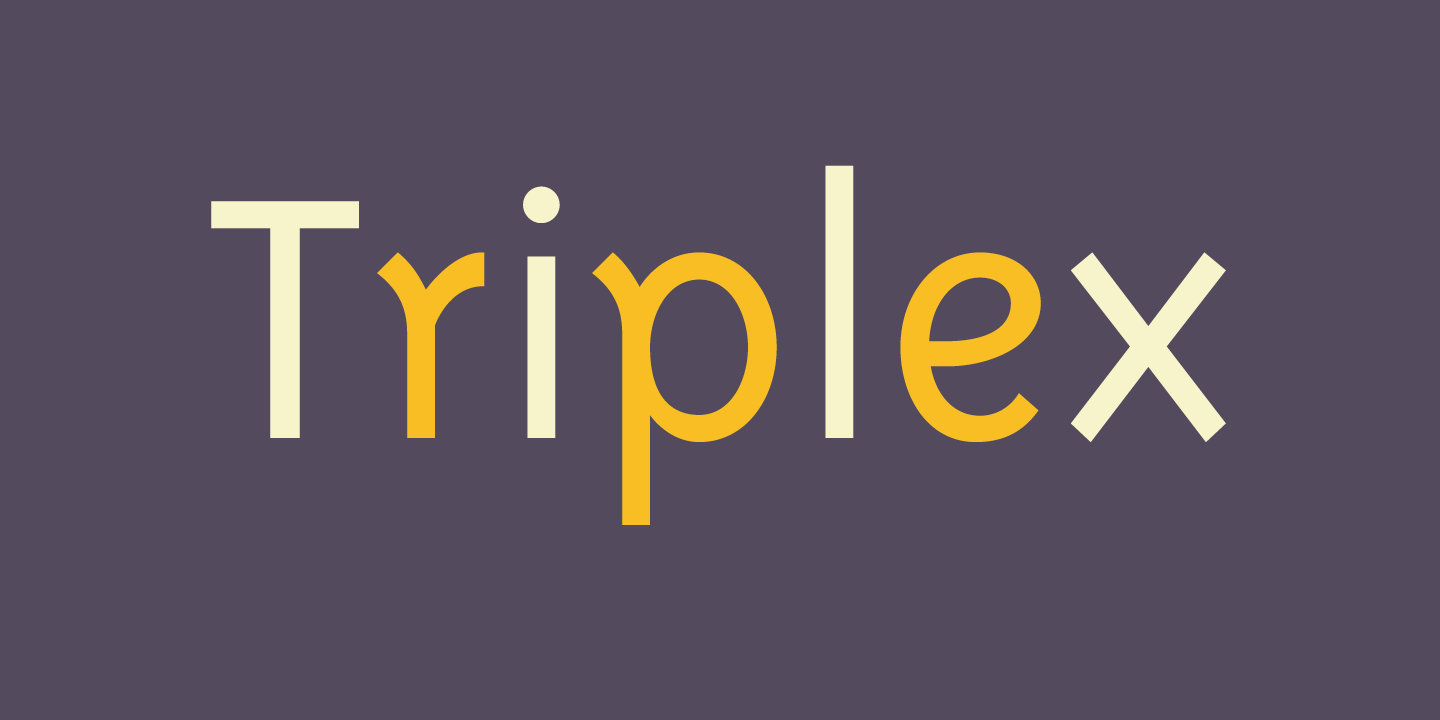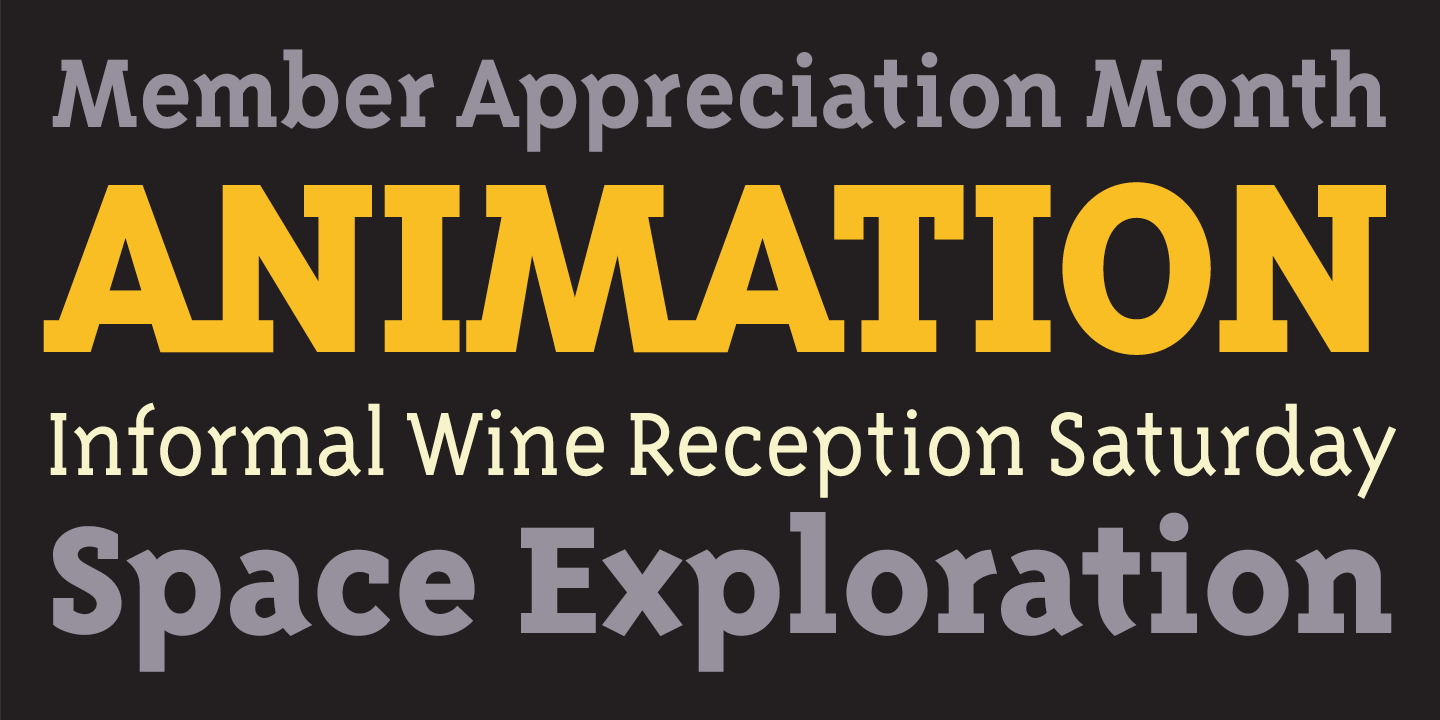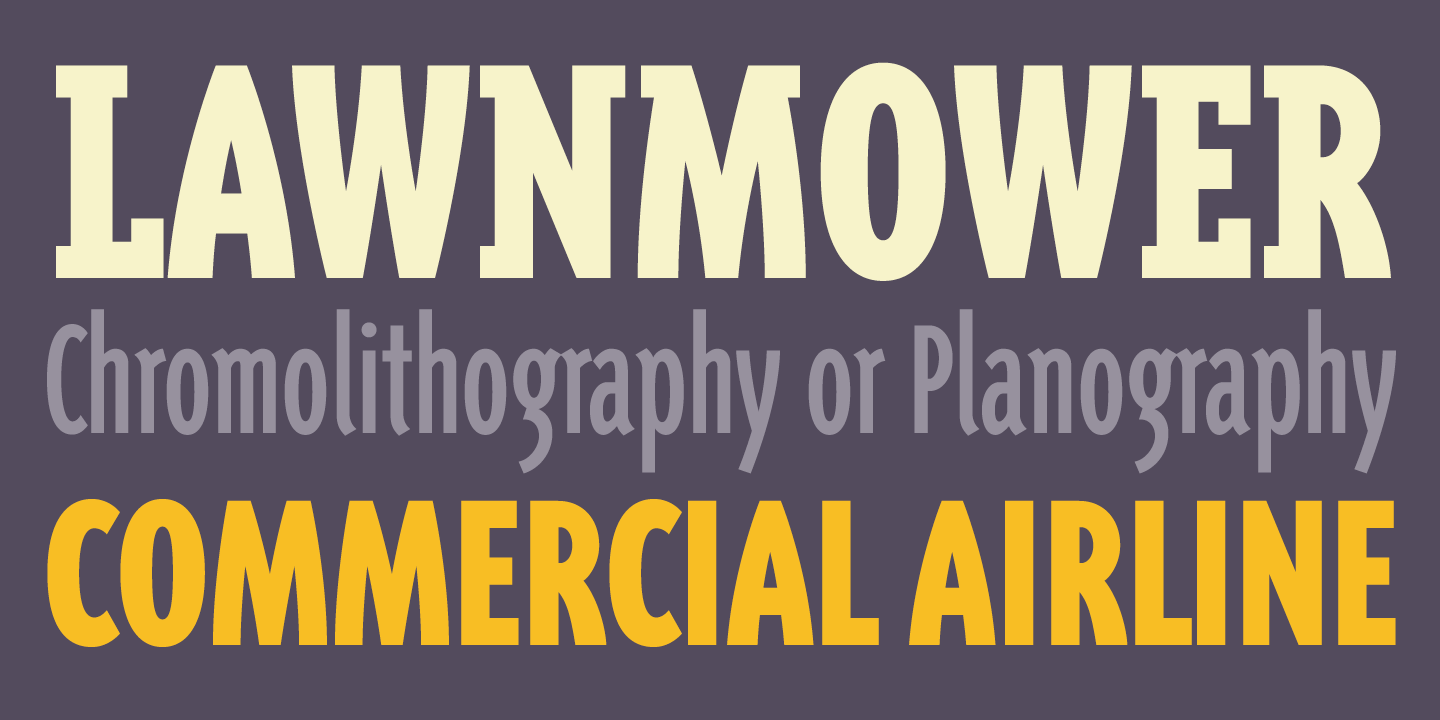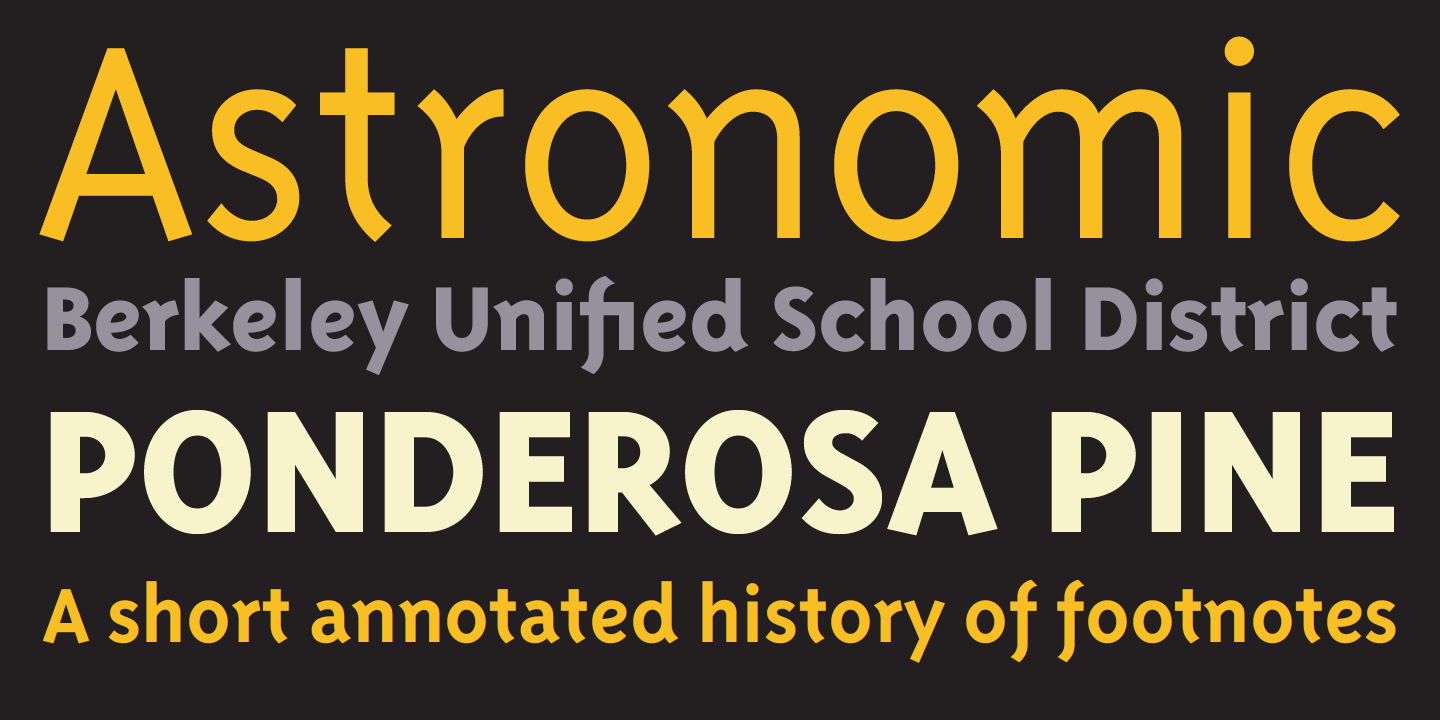
Although initially designed as a rational/geometric font, Triplex developed into one of Licko’s most intuitive typeface designs at the time of its release in 1989. Its roots, like many of Licko’s fonts during that period, can be traced back to her bitmap typeface designs which often functioned as the skeletons from which she developed her more expressive designs. Triplex’s origin can be found in the proportions of Lo-Res Twelve, a bitmap screen font, which morphed into Citizen, made of straight line segments , which then led to the design of Triplex.
Triplex was intended as a less rigid and friendlier substitute for Helvetica, and its first extensive use was in Emigre magazine #14, a special issue devoted to Swiss designers.
The name Triplex refers to the three versions that make up the entire family: Triplex, Triplex Serif and Triplex Italic. Each version of the typeface comes in light, bold and extra bold. The italic was designed and drawn by type designer and sign painter John Downer, and was designed to work with both the serif and sans serif versions.